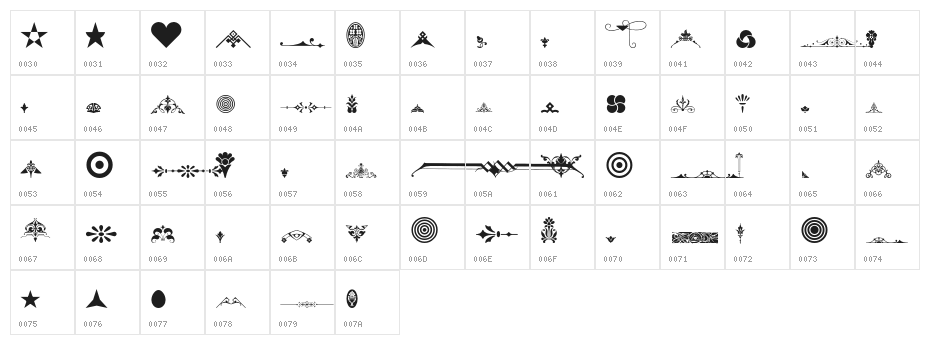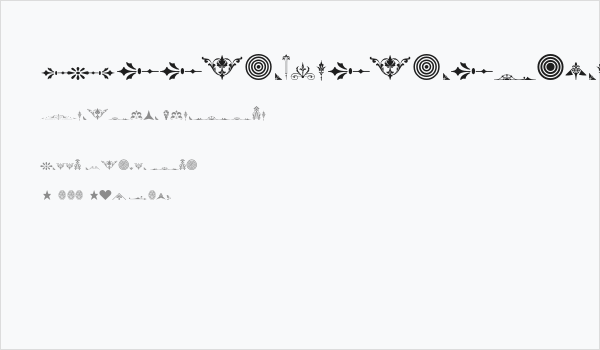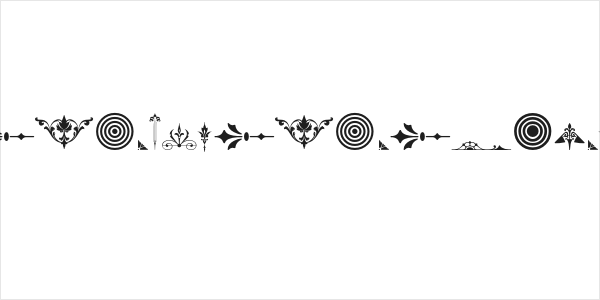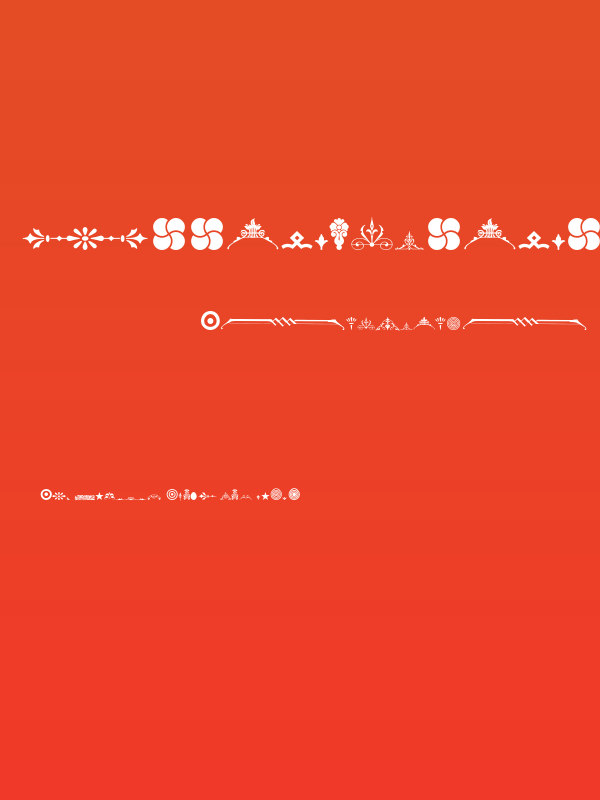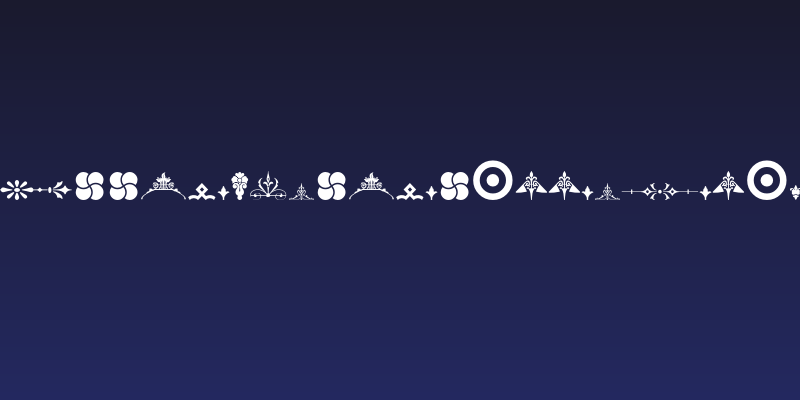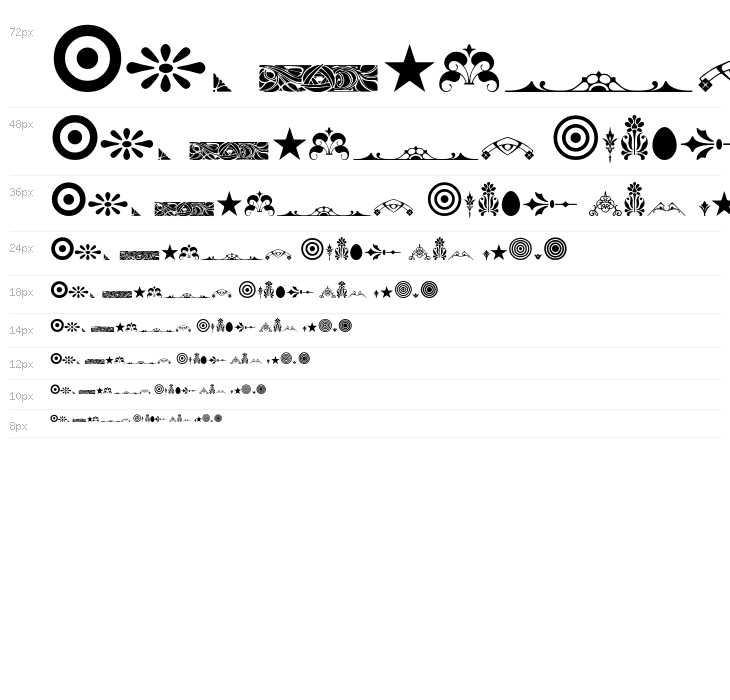
UnnamedOrnamentsSeriesTwo Font
UnnamedOrnamentsSeriesTwo Description
A decorative collection of ornate symbols, flourishes, geometric shapes, stars, hearts, and intricate borders, featuring a mix of symmetrical and organic motifs with varying line thicknesses and detailed embellishments.
| Overall Style | Decorative, Vintage, Ornamental |
| Use Case | Borders, embellishments, section dividers, graphic accents |
| Proposed Projects | Invitations, certificates, book covers, decorative dividers, branding, vintage-style posters, scrapbooking. |